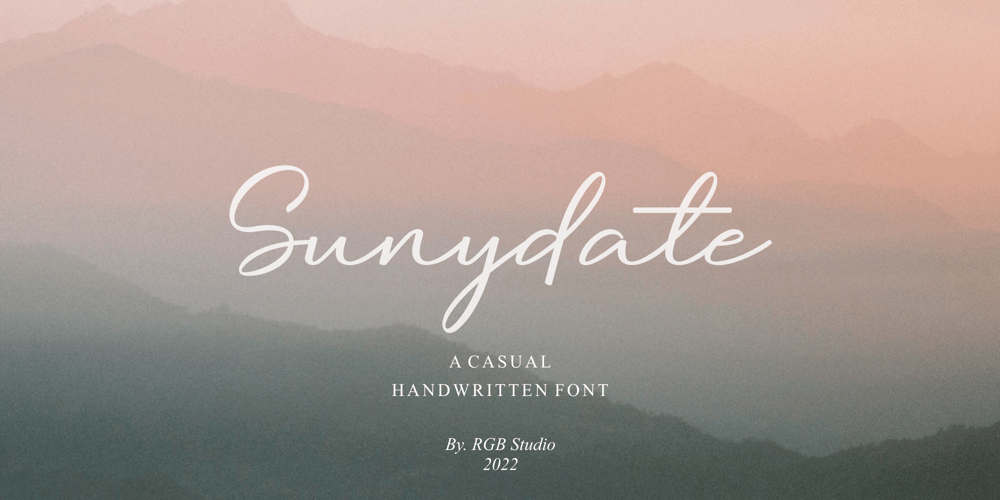
Sunydate Font Family was designed by MOH. MA’IN and published by RGB Studio. Sunydate contains 1 styles and family package options. Sunydate is a beautiful handwriting font. Its casual charm makes it appear wonderfully down-to-earth, readable, and, ultimately, incredibly versatile. Sunydate will look outstanding in any context. Files Include : Basic Latin A-Z and a-z Numbers Symbols PUA Encode Multilanguage Support .Thanks and have a wonderful day,If you have any questions, please get in touch with us Don’t forget to check out our other products.